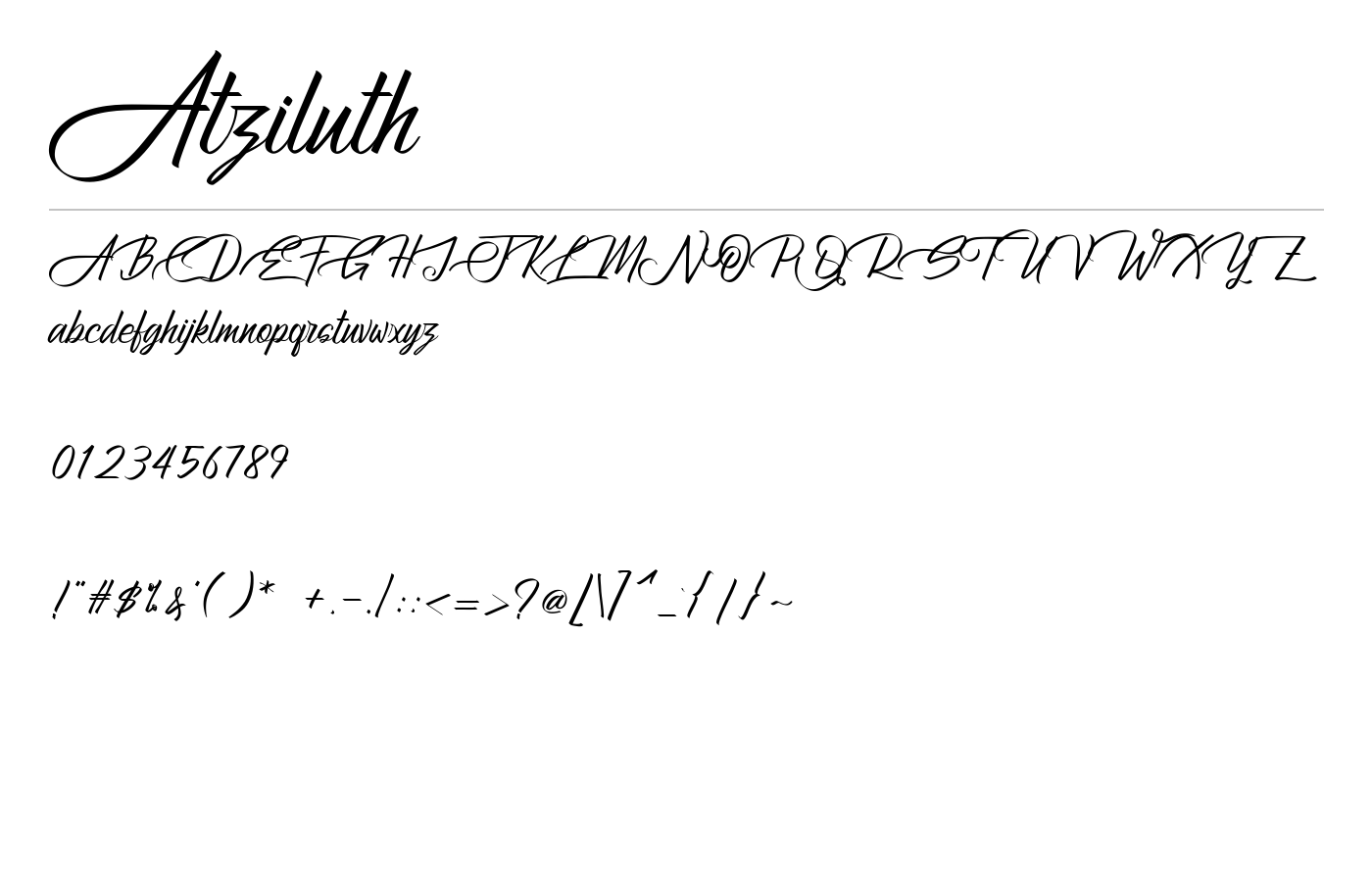
Atziluth is an elegant script font with a slender, flowing style that exudes sophistication and charm. Its delicate, high-contrast strokes and graceful letterforms make it ideal for invitations, branding, and other design projects that require a refined, romantic touch. This font works beautifully in headlines and logos where a stylish, handwritten feel is desired.
Atziluth Font
About Atziluth Font